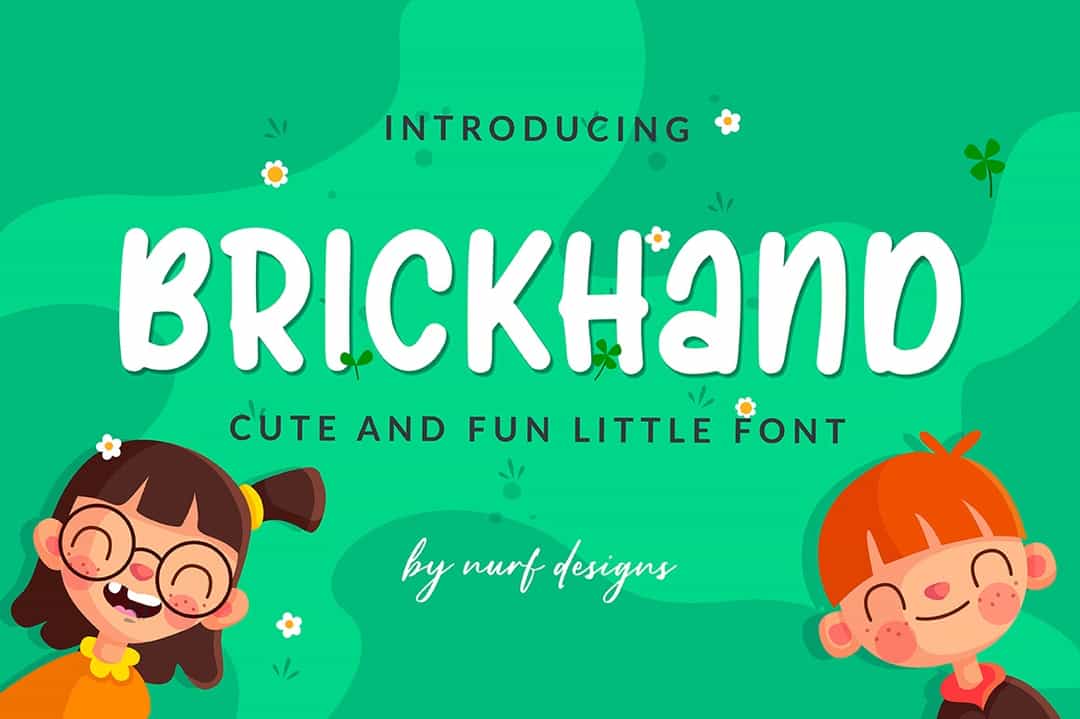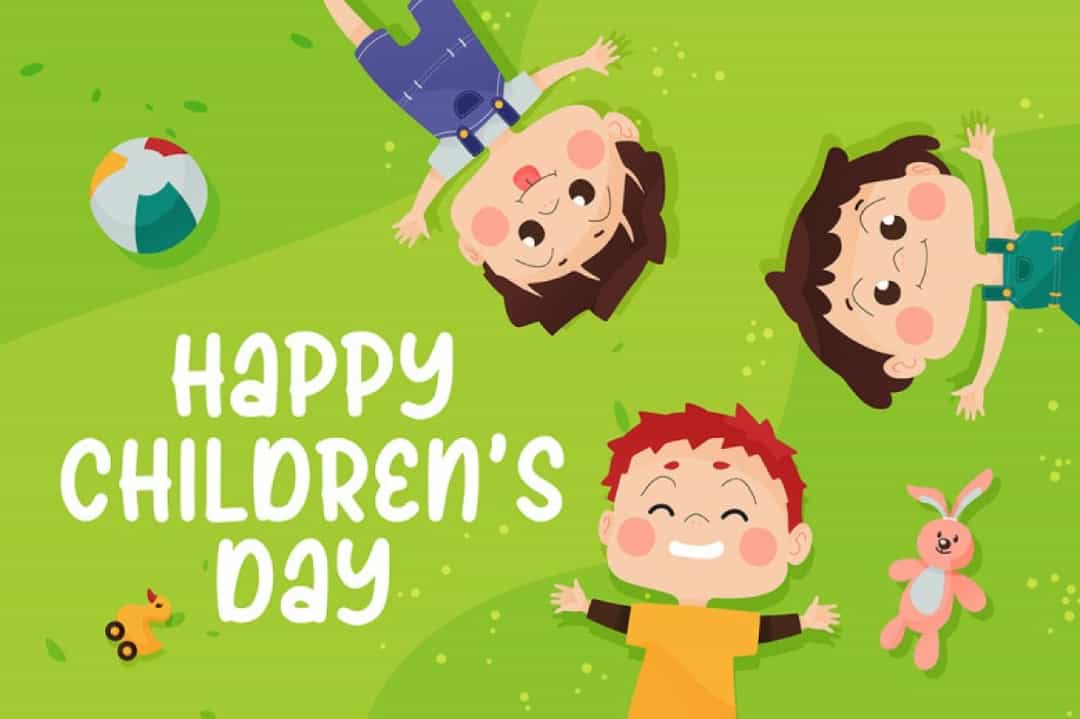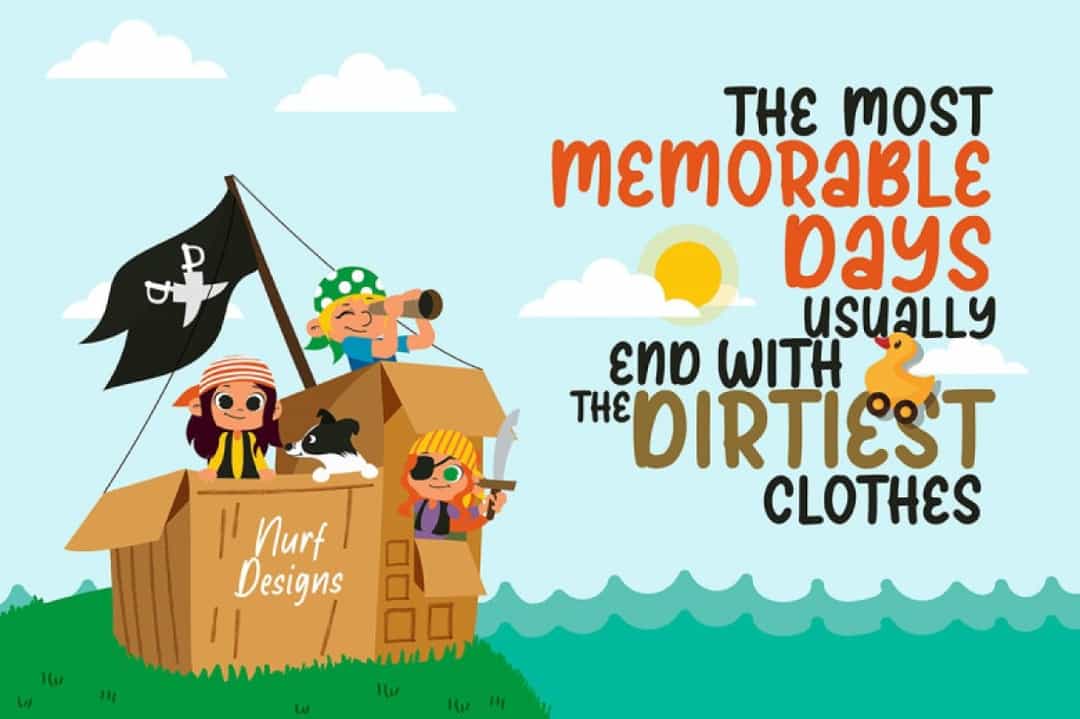
Brickhand is a charming and enjoyable display typeface. It’s a playful style that can elevate your work to the top quality. Be creative with its kid-like playing, and use it to lighten up your school or child-related project!